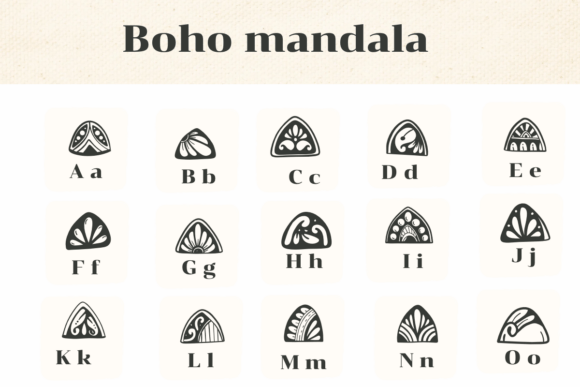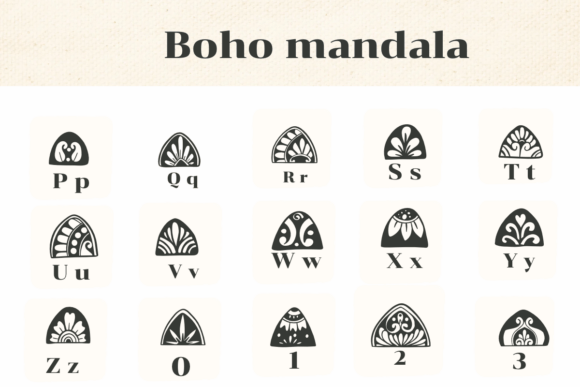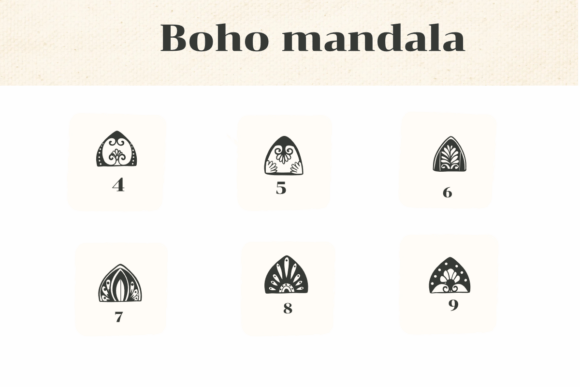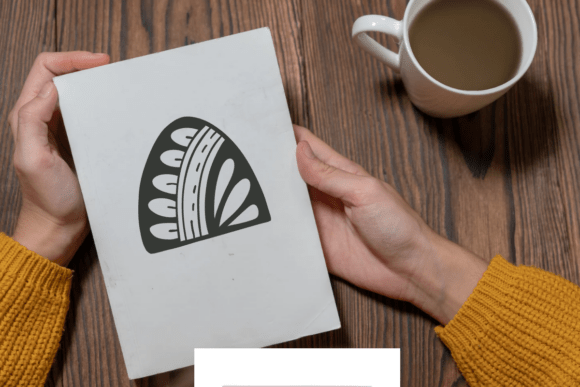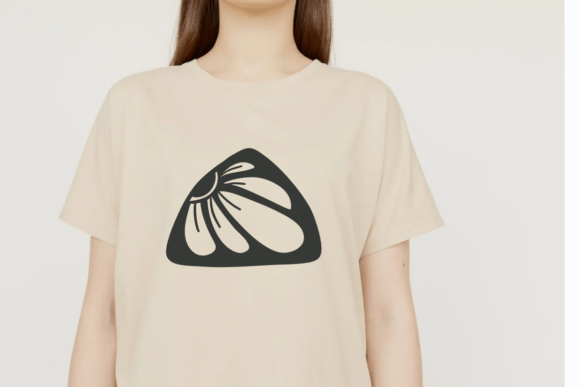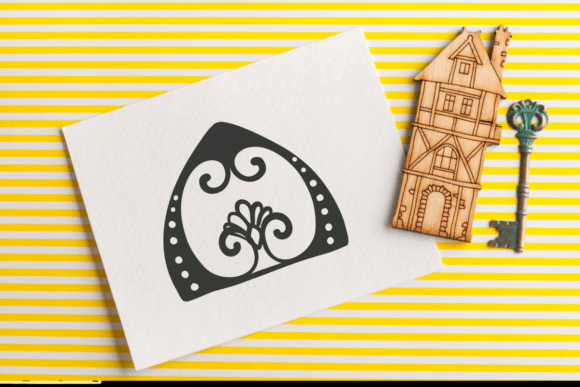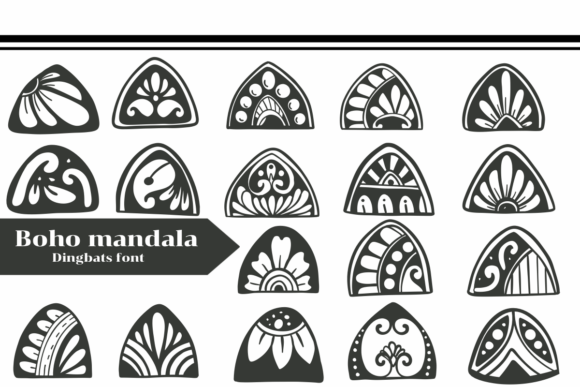
Unlock the Free-Spirited Charm of Boho Mandala Font
Are you a designer or crafter looking to infuse your creations with a touch of bohemian flair? Look no further than the Boho Mandala Font, a unique dingbat font that embodies the essence of free-spirited charm. This stunning font is filled with hand-drawn mandala-style triangle motifs, each one a mini artwork waiting to elevate your designs to the next level.
The Art of Boho Mandala
The Boho Mandala Font is a masterful blend of harmonious curves and tribal-inspired shapes, making it the perfect choice for bohemian, mystical, or spiritual themes. Each glyph in the font is meticulously crafted to create a sense of unity and balance, reflecting the beauty of mandala art. Whether you’re working on prints, crafts, textiles, tattoos, packaging, or invitations, this font is sure to add a dash of personality and whimsy to your designs.
One of the most exciting aspects of the Boho Mandala Font is its versatility. With a wide range of uses, you can experiment with different design ideas and applications. Here are just a few examples of how you can harness the creative potential of Boho Mandala:
- Prints and Artworks: Add a bohemian twist to your posters, flyers, and artworks with the intricate patterns and shapes of Boho Mandala.
- Crafts and DIY Projects: Use the font to create unique and eye-catching designs for handmade crafts, such as jewelry, candles, or home decor items.
- Textiles and Fabric Design: Incorporate Boho Mandala into your fabric designs, creating stunning patterns for clothing, scarves, or home textiles.
- Tattoos and Body Art: The font’s tribal-inspired shapes make it a great choice for tattoo designs or temporary body art.
- Packaging and Branding: Elevate your packaging and branding with the Boho Mandala Font, adding a touch of bohemian sophistication to your products.
- Invitations and Stationery: Make your invitations, greeting cards, and stationery stand out with the font’s unique and whimsical designs.
Why Choose Boho Mandala Font?
So, what sets Boho Mandala apart from other fonts? Here are just a few reasons why designers and crafters love this unique dingbat font:
- Hand-drawn with love: Each glyph in Boho Mandala is carefully crafted by hand, giving the font a personal and distinctive touch.
- Instant bohemian charm: The font’s tribal-inspired shapes and harmonious curves instantly evoke a sense of bohemian flair, perfect for designers and crafters looking to add a touch of free-spirited charm to their creations.
- Easy to use: Boho Mandala is a dingbat font, making it easy to use and incorporate into your designs.
- Scalable and versatile: The font is highly scalable, ensuring that it looks great in any size or application.
Get Ready to Unleash Your Creativity
In conclusion, Boho Mandala Font is a game-changer for designers and crafters looking to add a touch of bohemian flair to their creations. With its hand-drawn mandala-style triangle motifs, harmonious curves, and tribal-inspired shapes, this unique dingbat font is the perfect choice for anyone looking to elevate their designs and unleash their creativity. So don’t miss out on this amazing opportunity to take your designs to the next level – download Boho Mandala Font today and start creating!